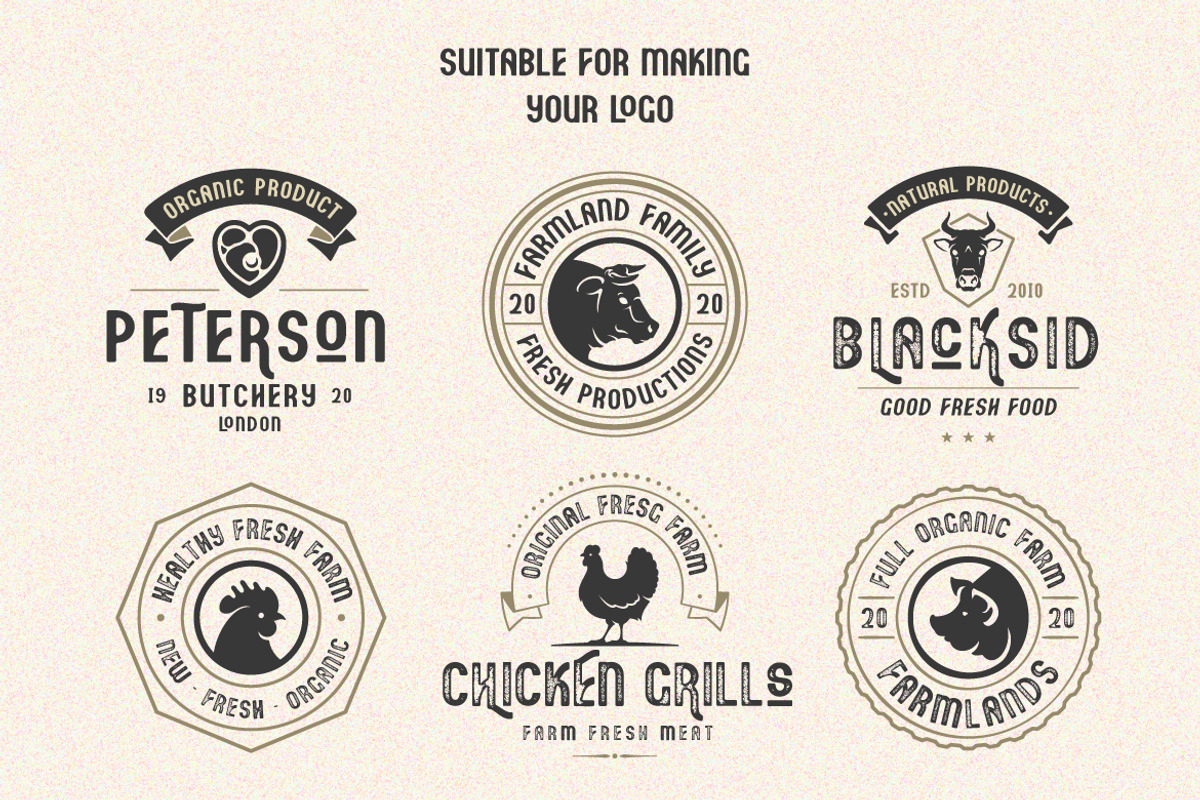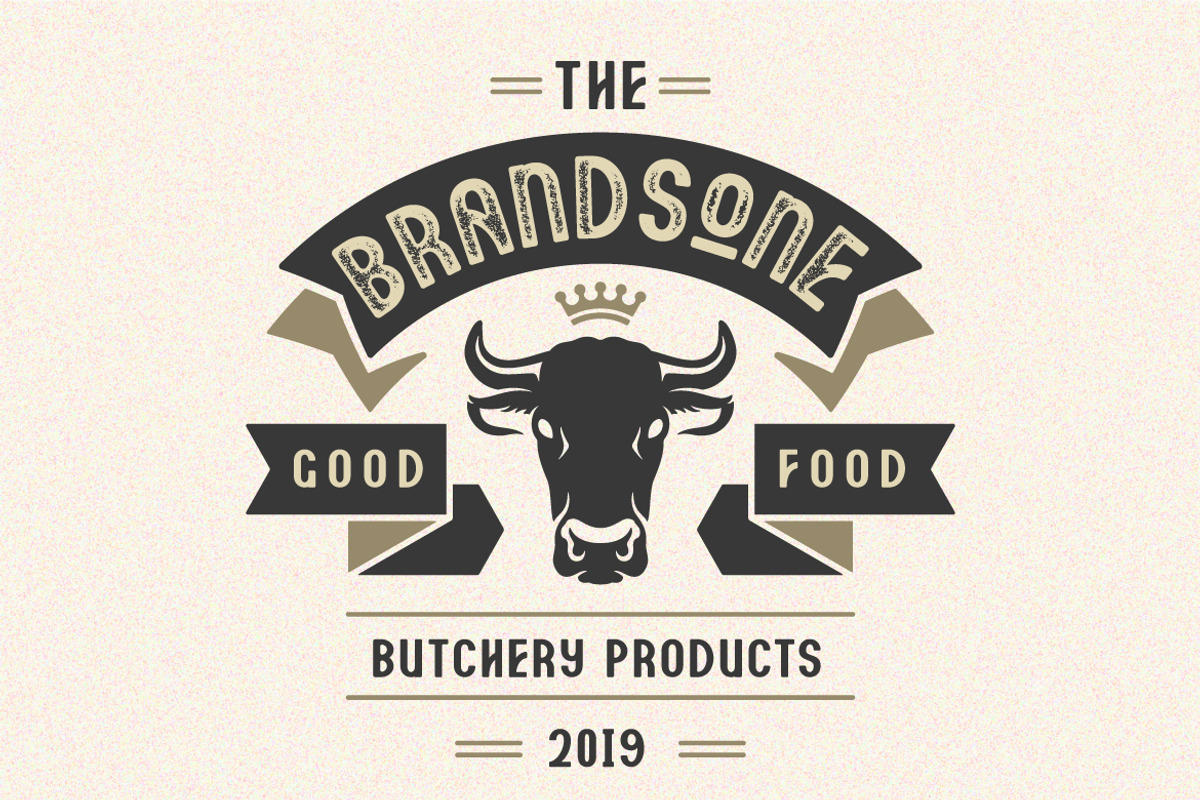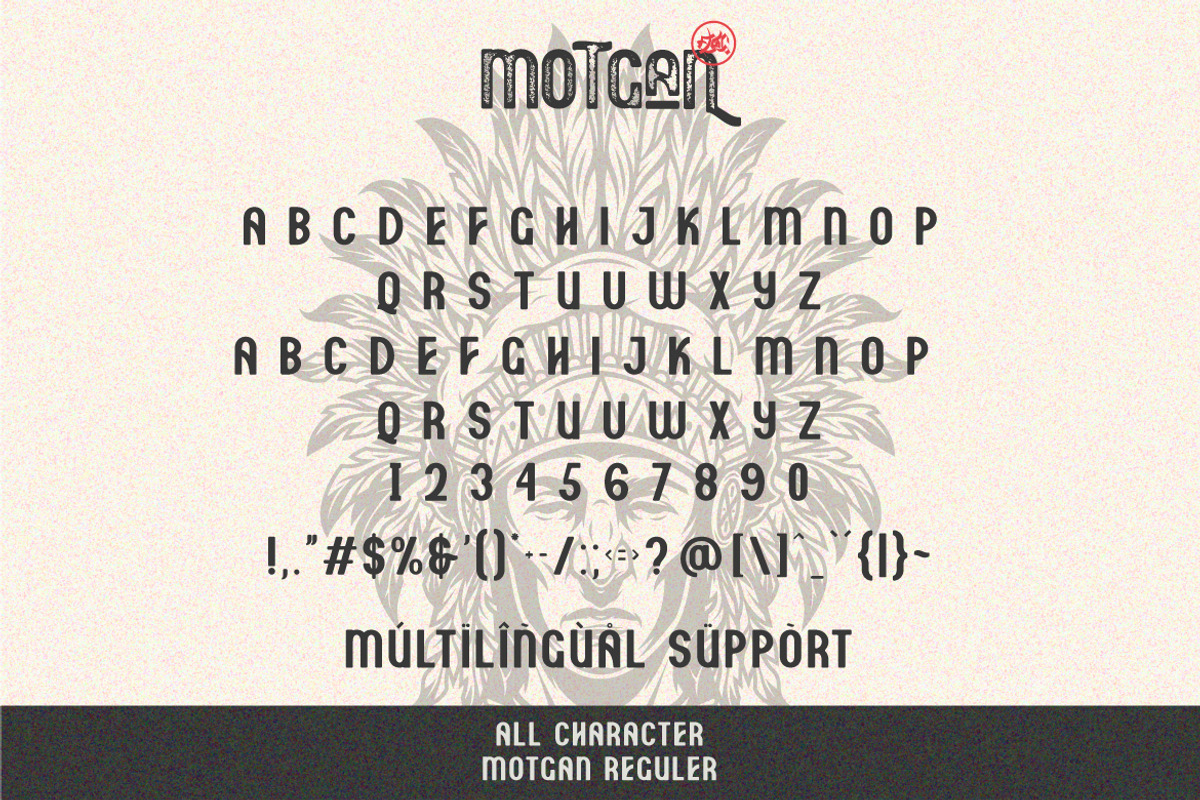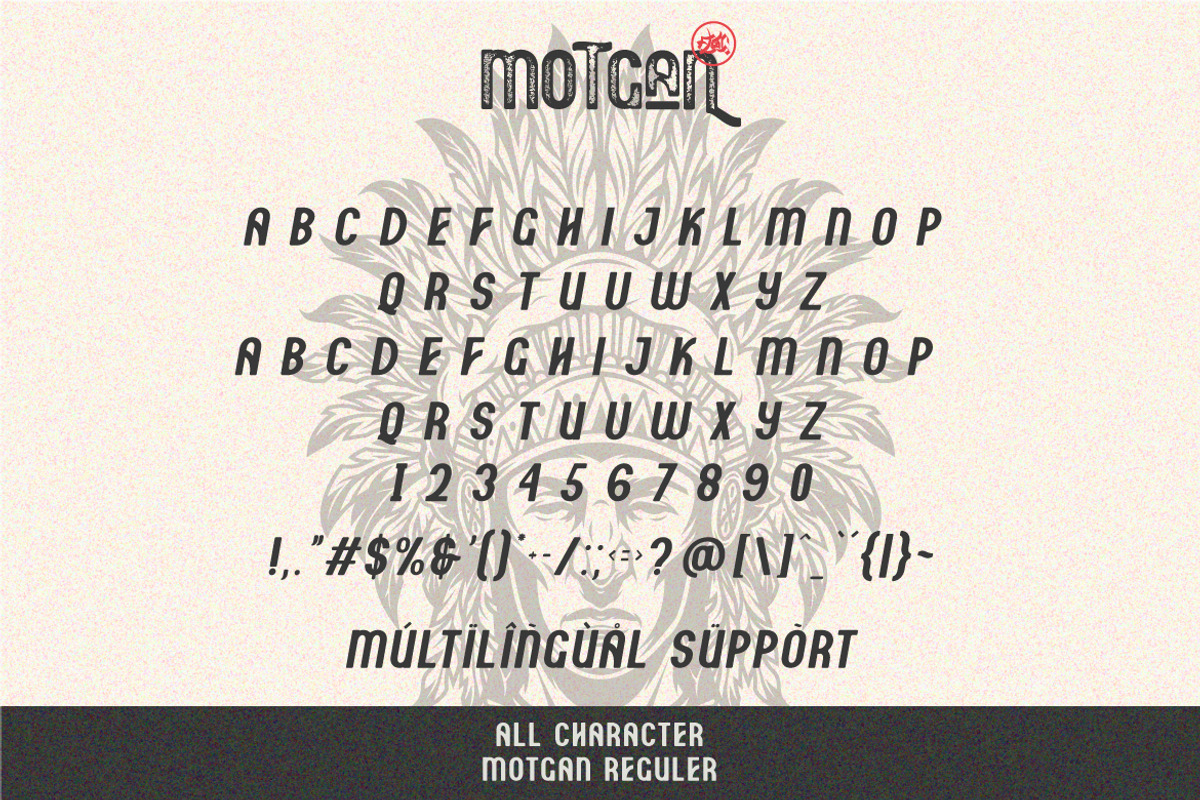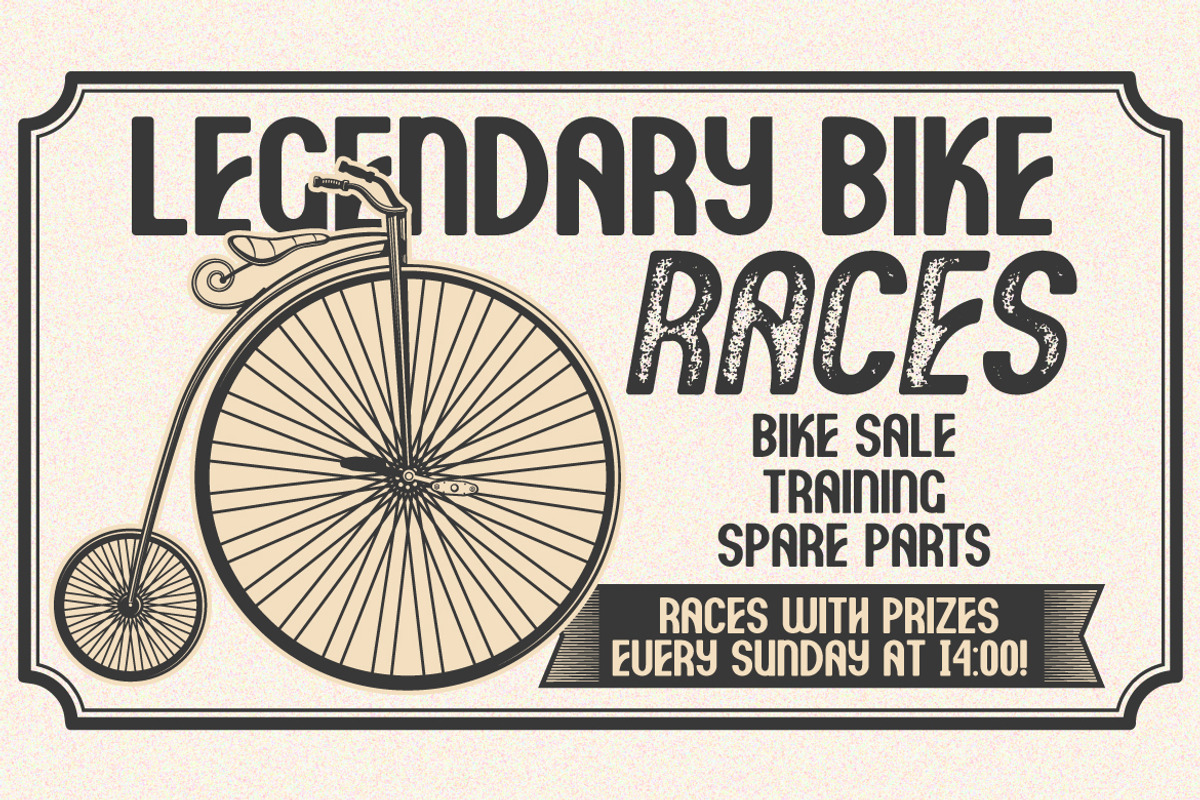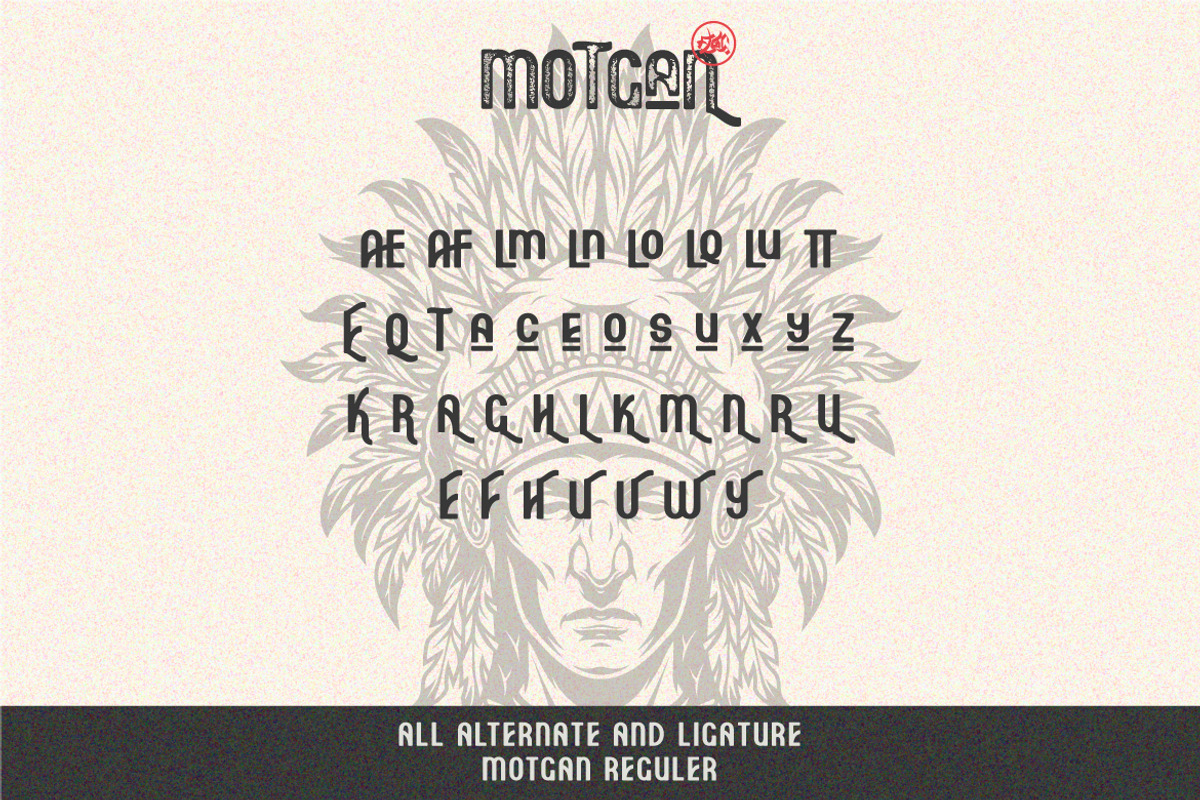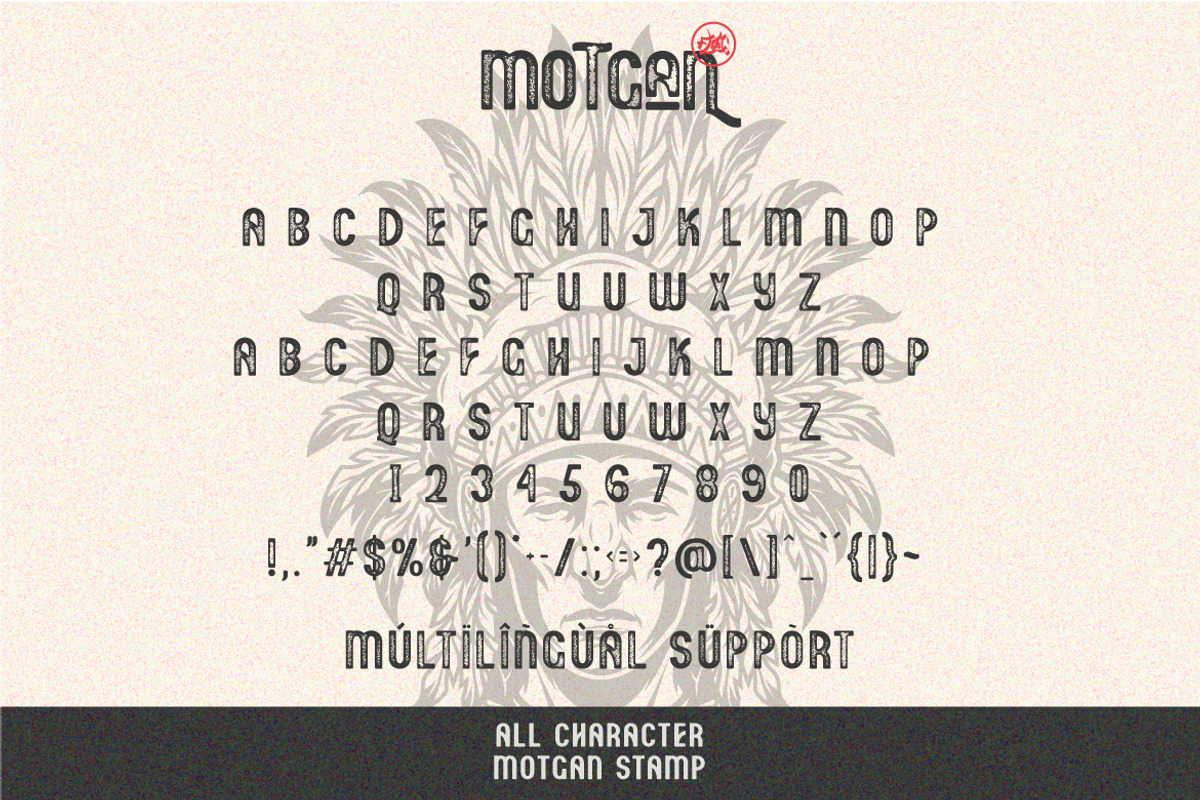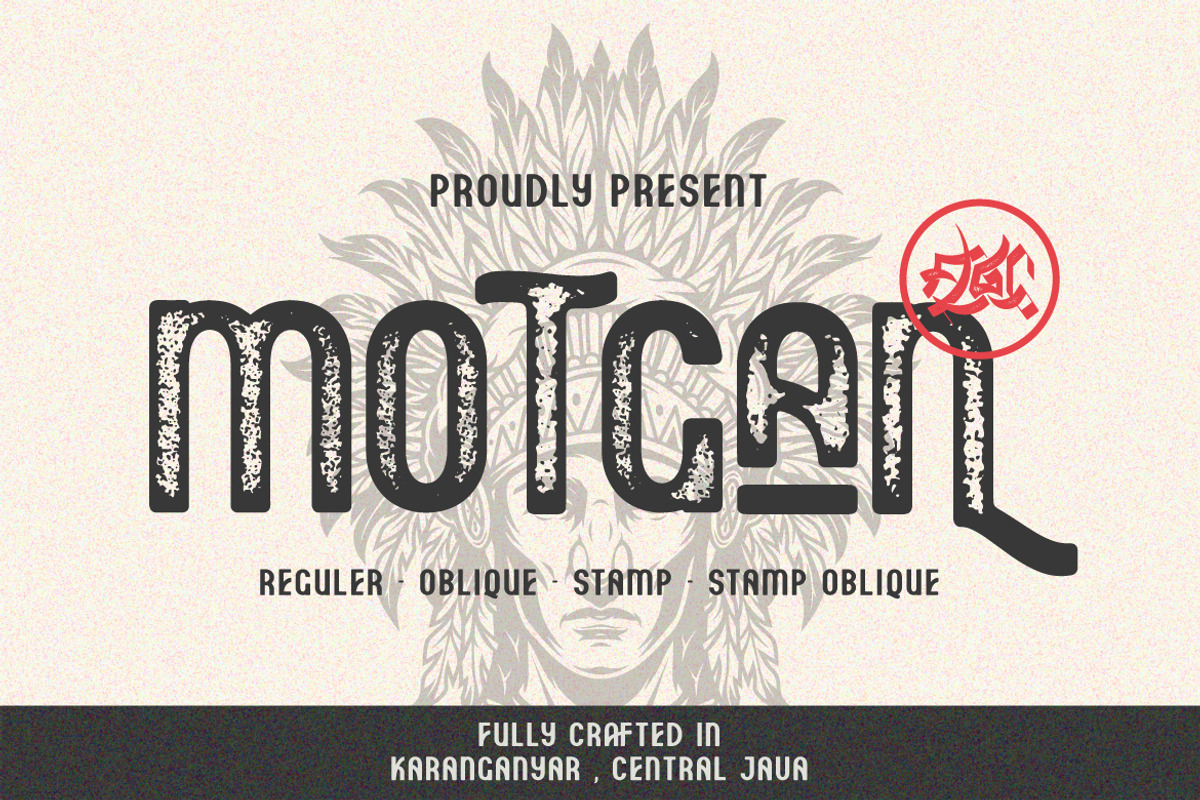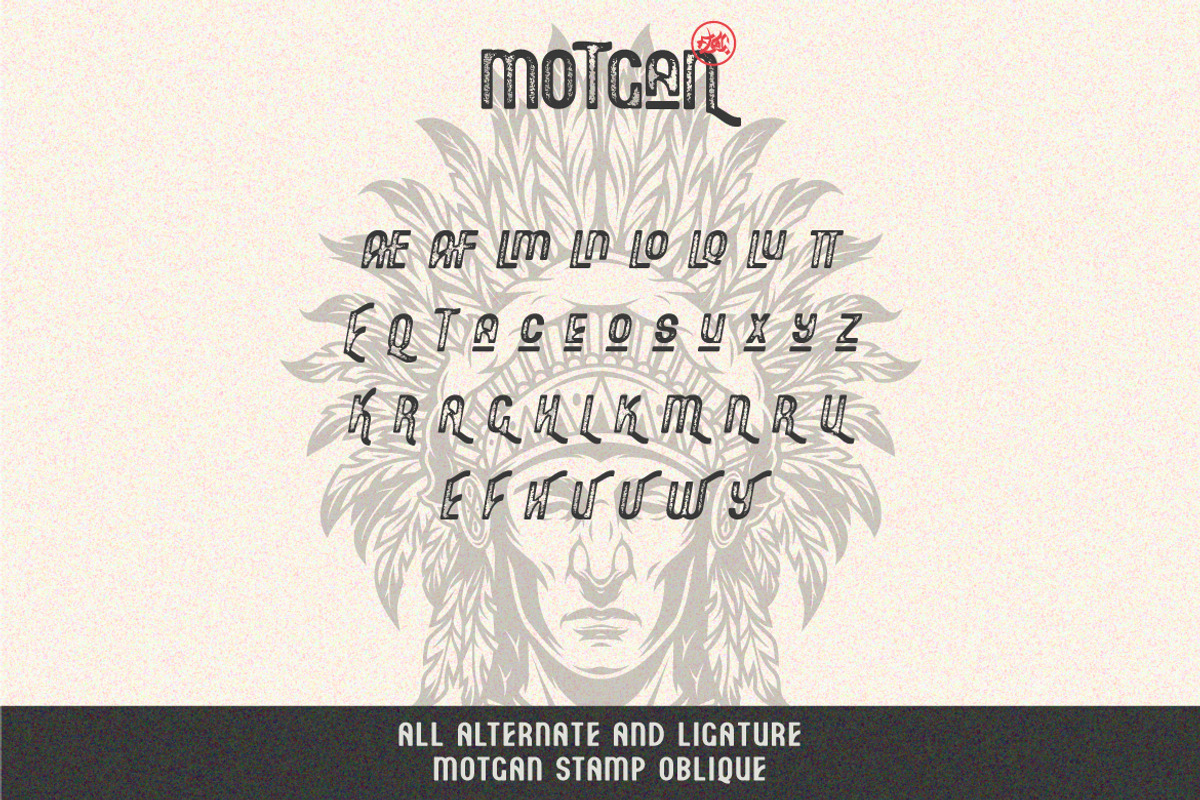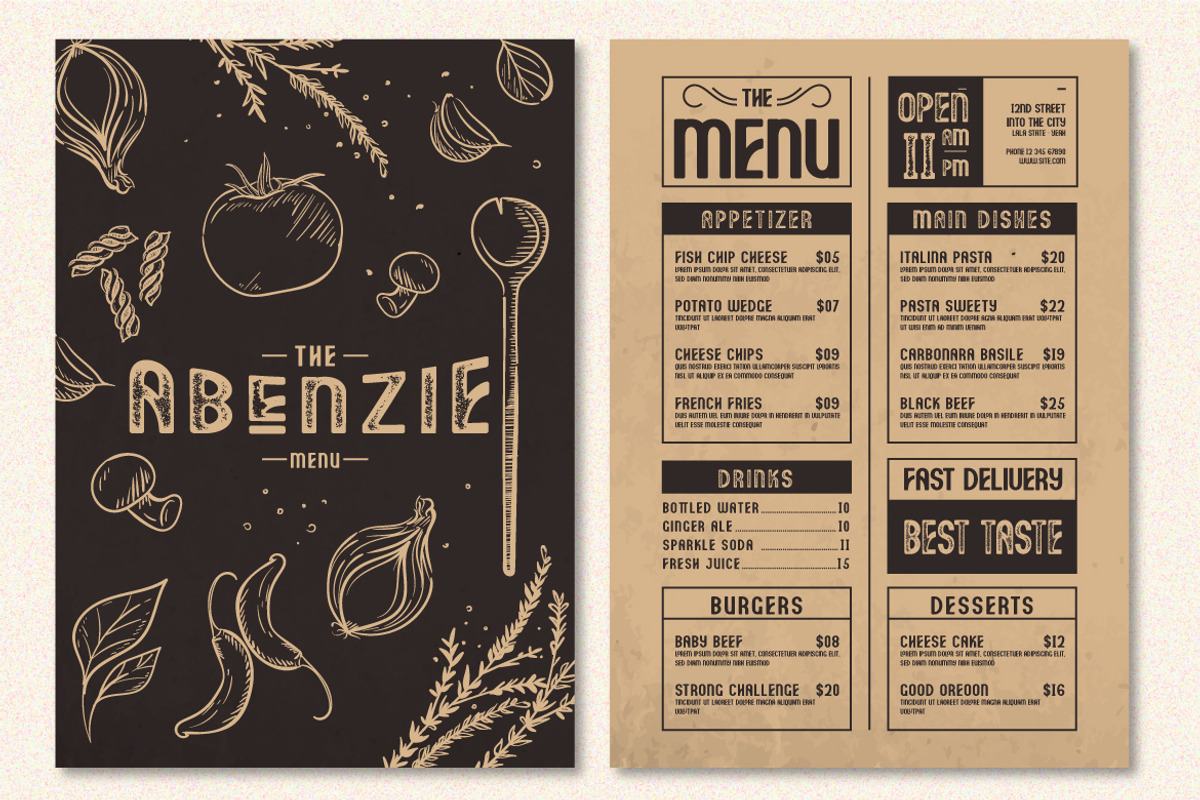
Motgan - Vintage Font
Introducing Motgan – Vintage Fonts
Motgan is a vintage sans serif family including Textured, & Clean versions as well as Oblique versions of each.
Motgan is a versatile sans serif typeface that gives a vintage aesthetic. With it’s unique & distinct characteristics it sets itself apart, while also maintaining a strong timeless appeal overall. Textured versions allow Motgan to be a complete set without the need for 3rd party effects to create a printed look, eliminating a step in the process of finalizing your piece.